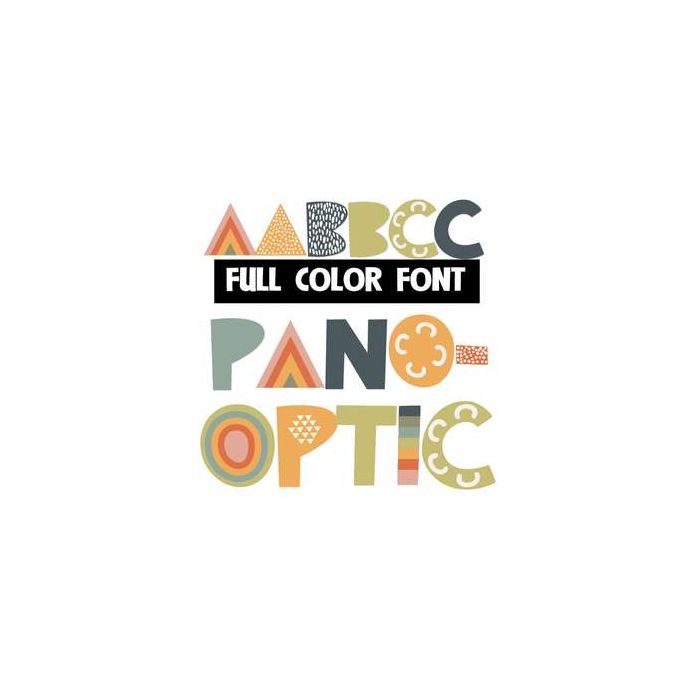
This full-color font features a trendy color palette. This font works best for titles, displays, posters and more. Please note color fonts will show as black in non compatible programs. This font type is compatible with Silhouette Studio.